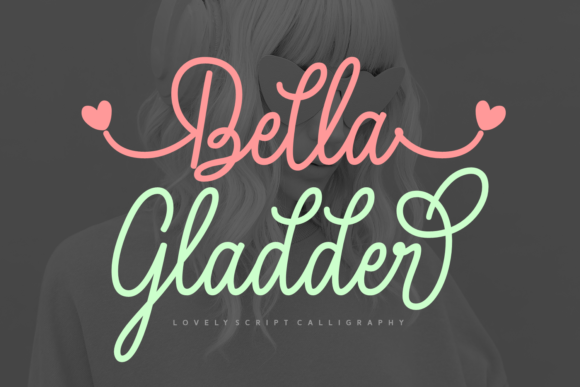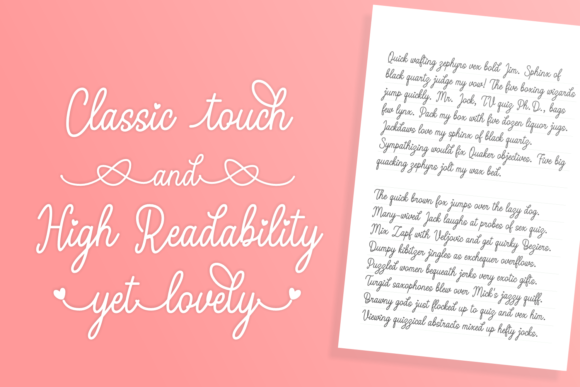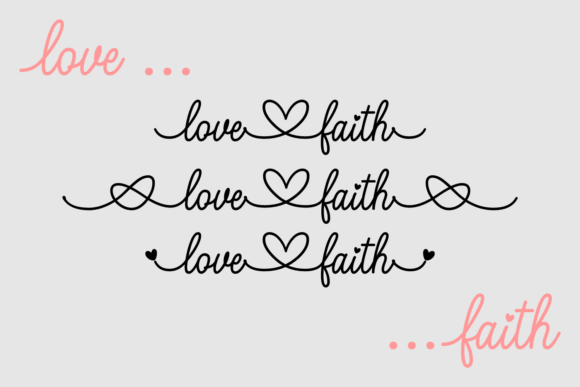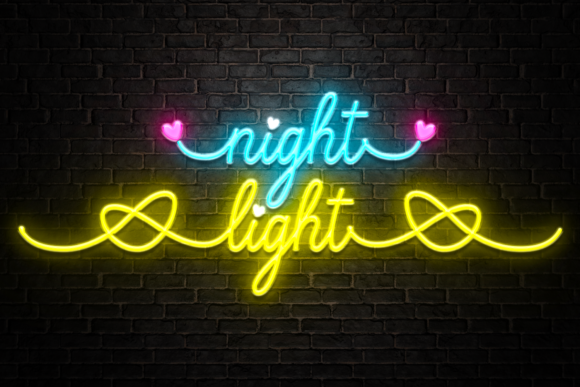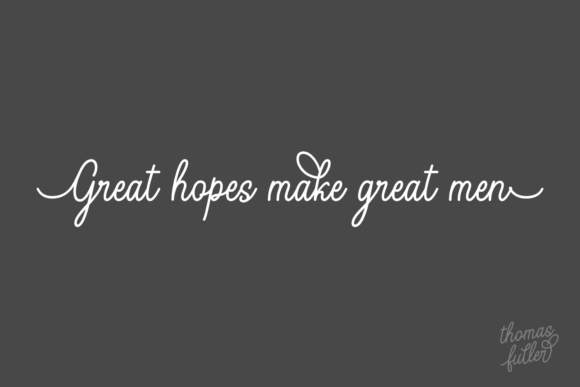
About Bella Gladder Font
If you’re in search of an elegant handwritten font, your quest ends with Bella Gladder. This charming script calligraphy font is the epitome of grace and sophistication, making it the ideal choice for a variety of applications such as cards, quotes, books, articles, posters, branding, and art prints.
Bella Gladder stands out as a font that effortlessly combines elegance with a personal touch. Its handwritten style adds warmth and authenticity to your projects, making it particularly well-suited for conveying sentiments on cards, creating stylish quotes, or enhancing the visual appeal of books and articles.
The versatility of Bella Gladder extends to broader design applications, including posters and branding materials. Its graceful strokes and refined letterforms lend a timeless and sophisticated quality, ensuring that your designs exude a sense of class and distinction.
Imagine using Bella Gladder to create art prints that not only showcase its elegant script but also bring a touch of sophistication to any space. The fluidity of the font allows for a seamless integration into diverse design contexts, providing you with the creative freedom to express your unique style.
In summary, Bella Gladder is more than just an elegant handwritten font; it’s a versatile tool that elevates your designs across a range of creative projects. Whether you’re aiming for a classic or contemporary aesthetic, this font adds a touch of refined charm to your work, making it a standout choice for those seeking both elegance and a personal, handwritten feel.